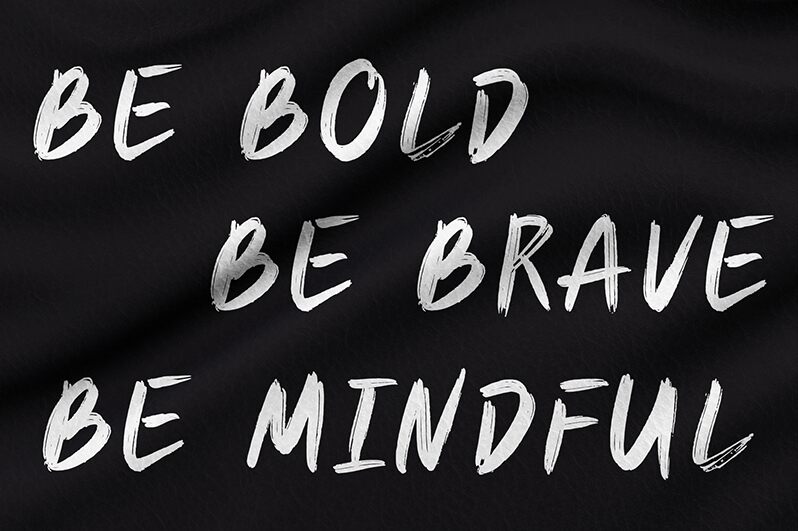
Introducing Ascrada, the bold and beautiful brush font designed by Muhammad Hisyam Rivai. With its expressive strokes and artistic curves, this font is perfect for eye-catching projects that demand attention. Its bold weight adds a touch of drama to headlines and titles, while its playful style makes it ideal for branding, packaging, and social media graphics. From fashion to food, Ascrada is versatile enough to fit any industry or niche. So why settle for boring typography when you can unleash your creative potential with Ascrada? Download it now and give your designs the edge they deserve!